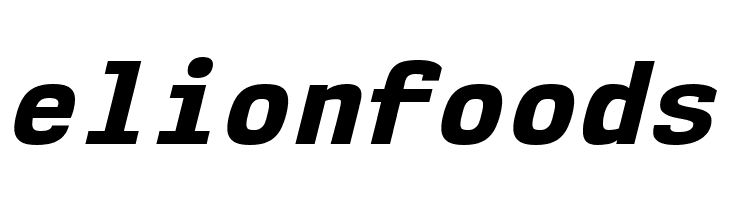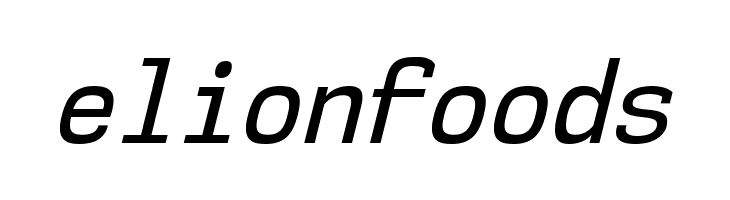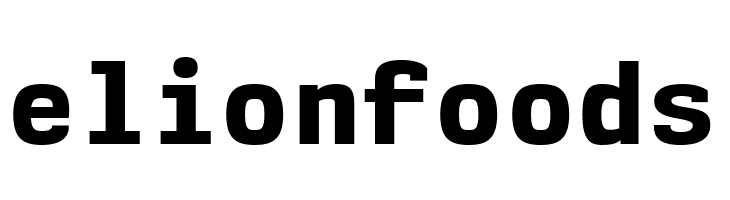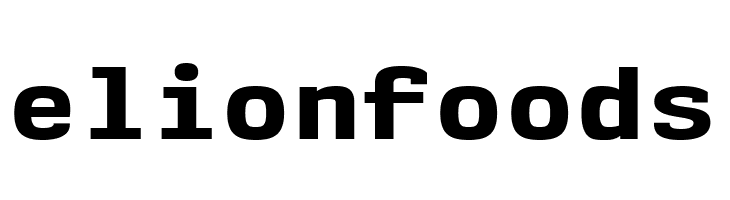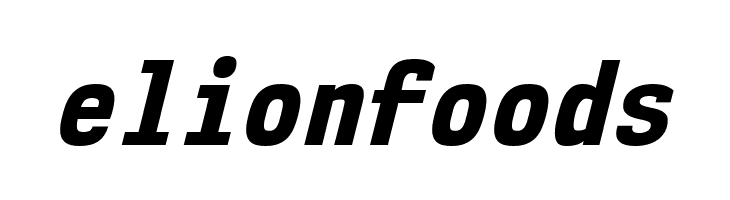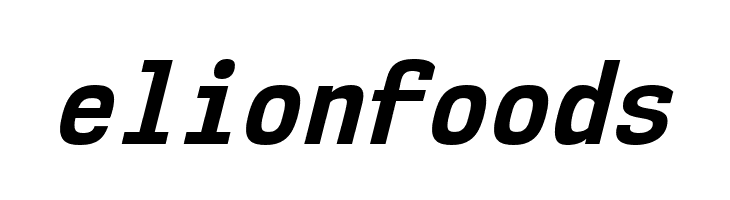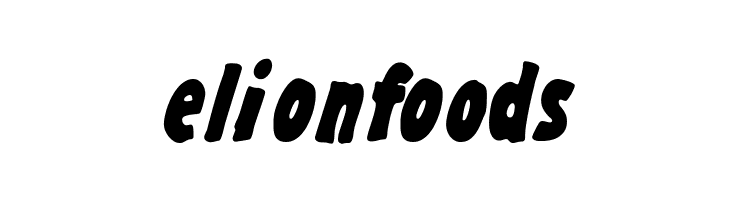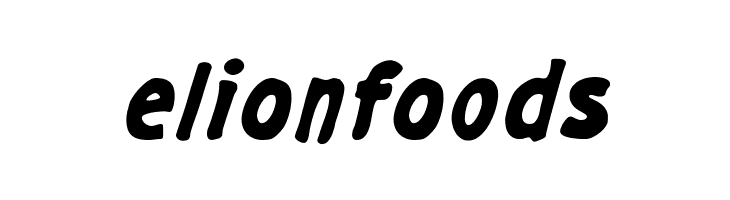
A bold, italic, monospaced font with a modern and technical style.
A modern, monospaced italic font with clean lines and uniform spacing.
A modern, monospaced italic font with uniform character spacing.
A bold, modern monospaced font with geometric shapes and uniform character width.
A bold, monospaced typeface ideal for coding and technical documents.
Bold, italicized monospaced font with uniform spacing and strong visual impact.
A bold, italicized monospaced font with a modern and sleek design.
A modern, monospaced italic font with light strokes and a clean design.
A bold, italicized, and playful font with rounded strokes and a dynamic style.
A bold, italicized font with a playful and dynamic style.